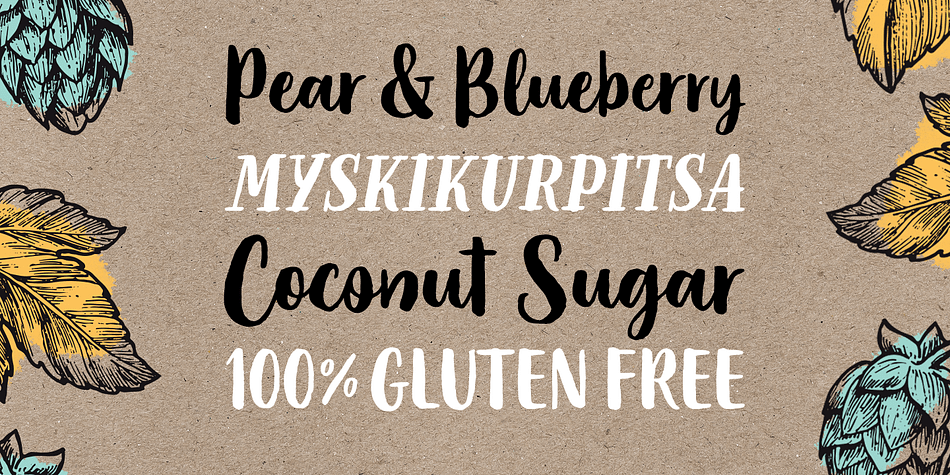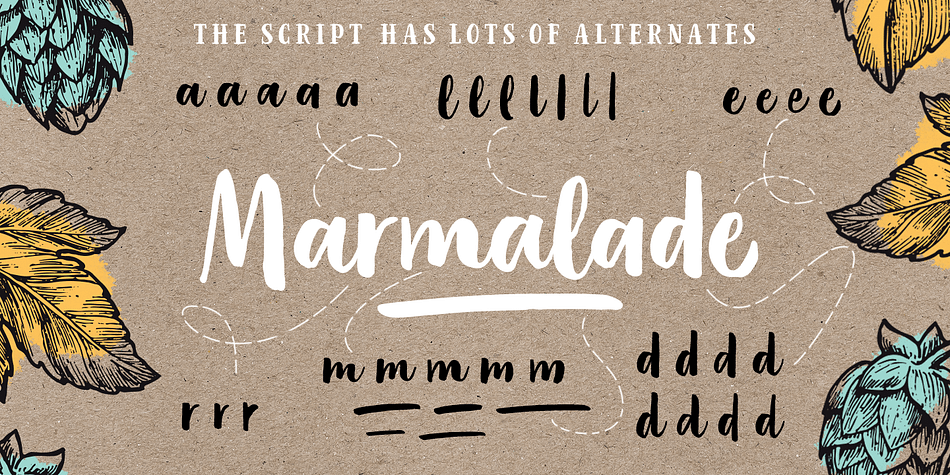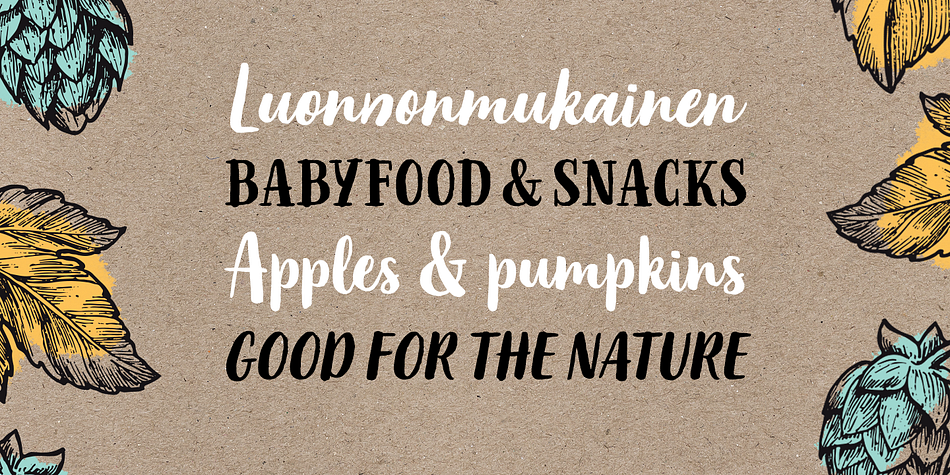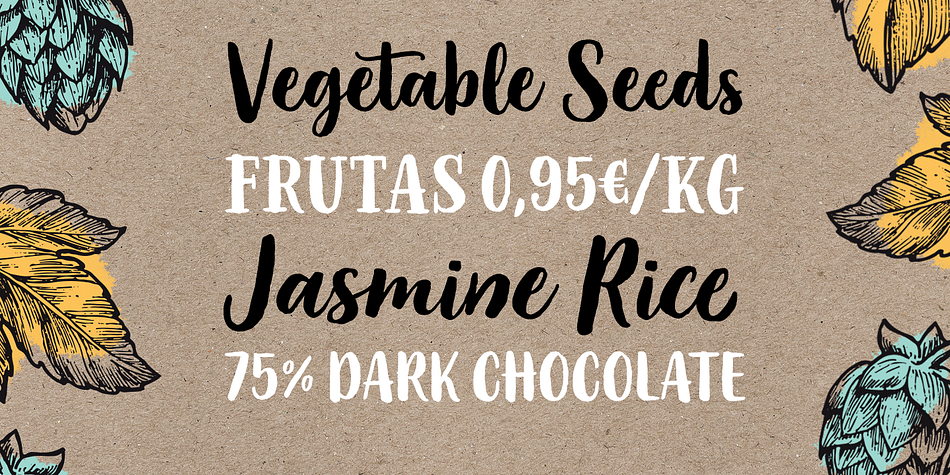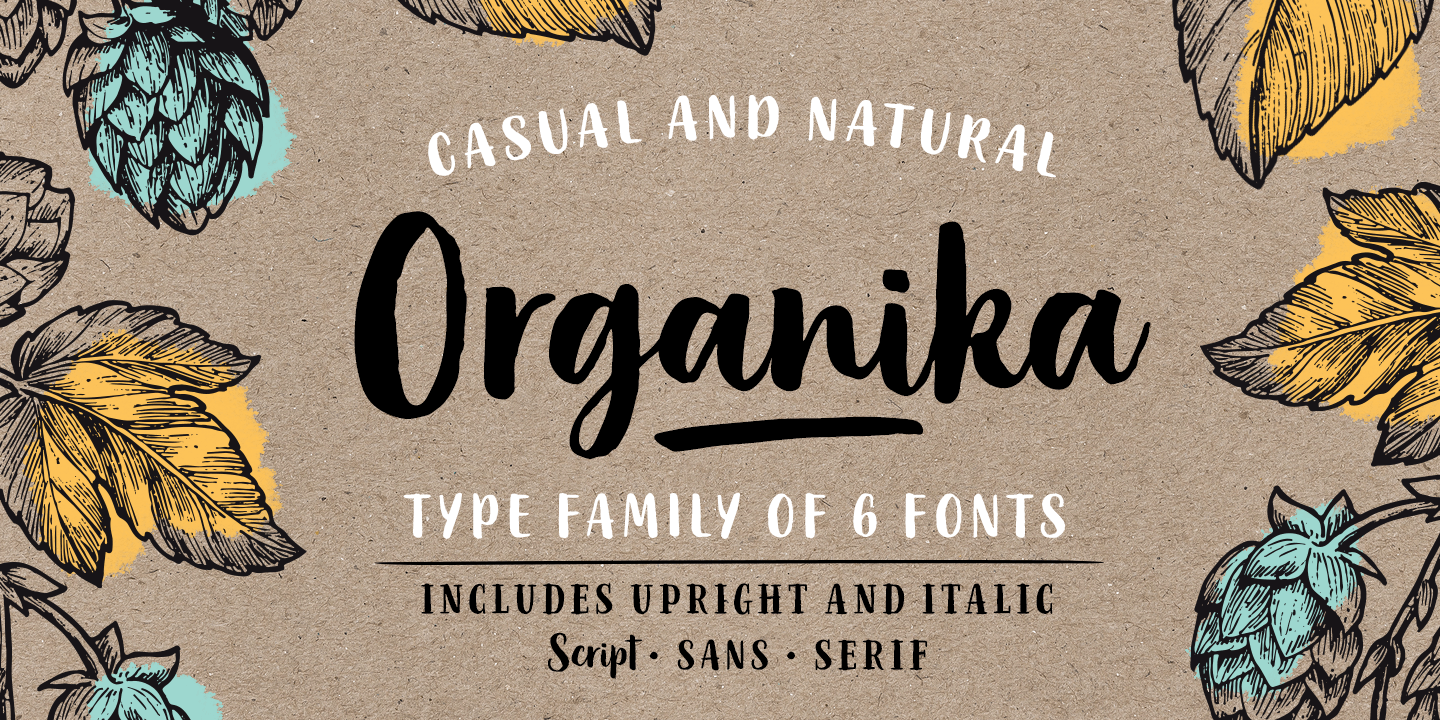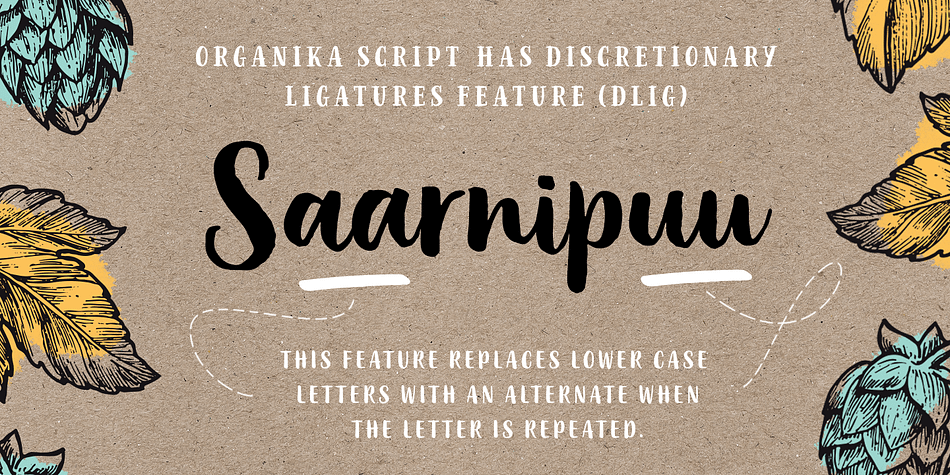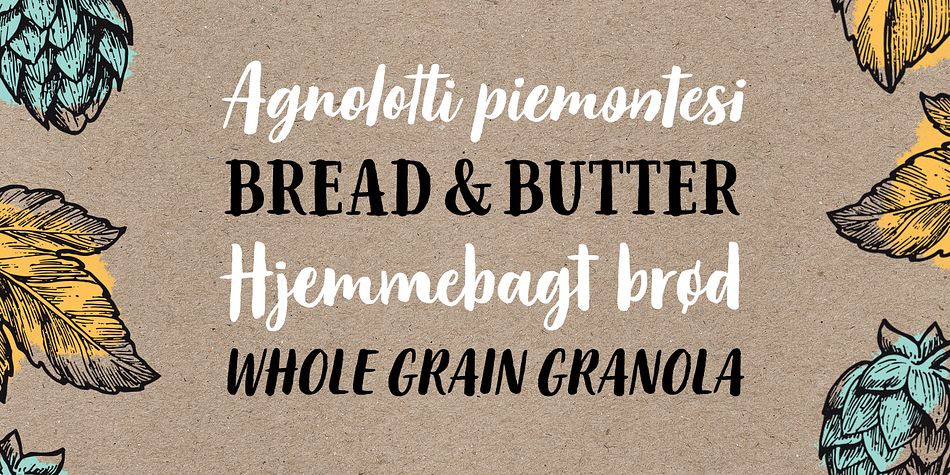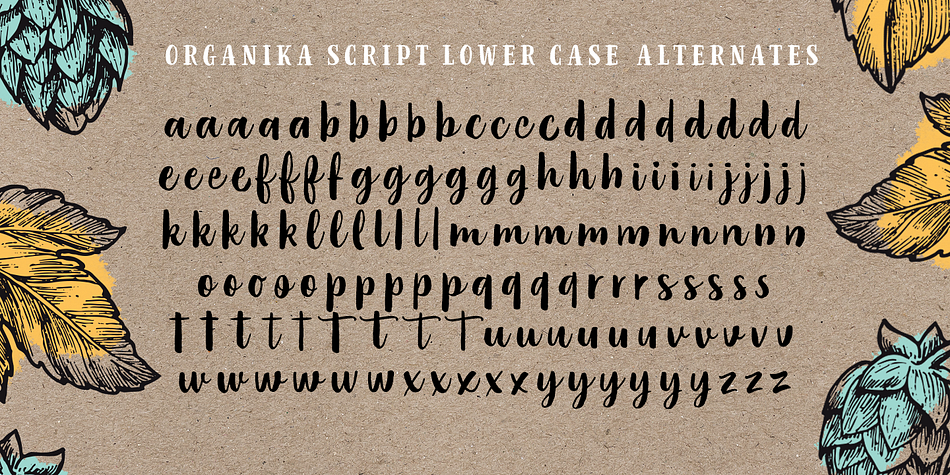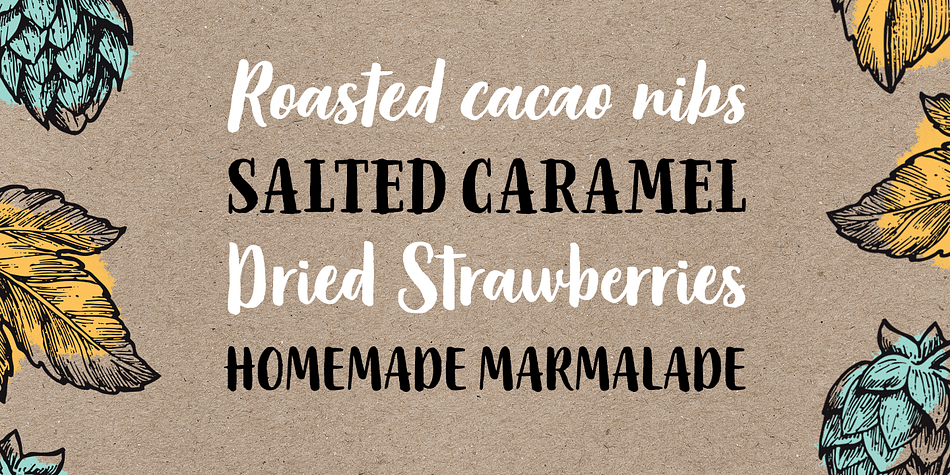
Organika is a multiple classification font family. This typeface has six styles and was published by Mika Melvas.
Organika is a hand drawn type family of six fonts. It includes upright and italic brush script, sans and serif fonts. Because of the uneven edges, loose forms and bouncing letters Organika has an organic, friendly and casual feeling.
The script has lots of alternates that gives you possibility to build your text almost like handwriting with all the charming imperfections and variations that a real handwriting has. If you enable Discretionary Ligatures OpenType feature (dlig) it replaces automatically lower case letters with an alternate when the letter is repeated. So there is never two letters next to each other that are just the same. The script also has a few neat underlines to choose from to give your design the final touch.
With the Organika sans and serif fonts you can add some variety and contrast to your design with the matching casual hand written feeling.